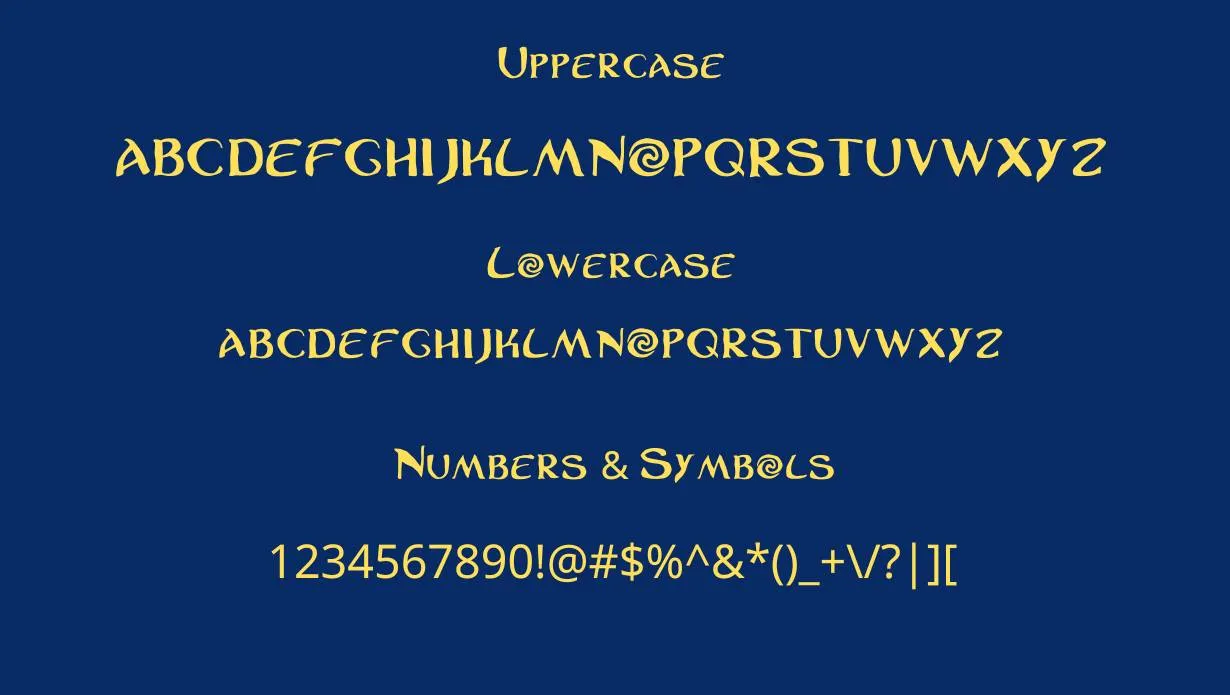
Moanas Font adds a touch of exotic and tropical flair to your designs. With its flowing and rounded letters, this font is perfect for projects inspired by beach themes, travel, or anything that evokes a sense of paradise.
Use it for party invitations, vacation posters, or any design where a relaxed and carefree atmosphere is desired. Technically, Moanas Font is crafted with a moderate weight and medium width, creating a harmonious and visually appealing result.
Its design elements contribute to a sense of warmth and laid-back charm, making it an ideal choice for projects that want to capture the spirit of the tropics.